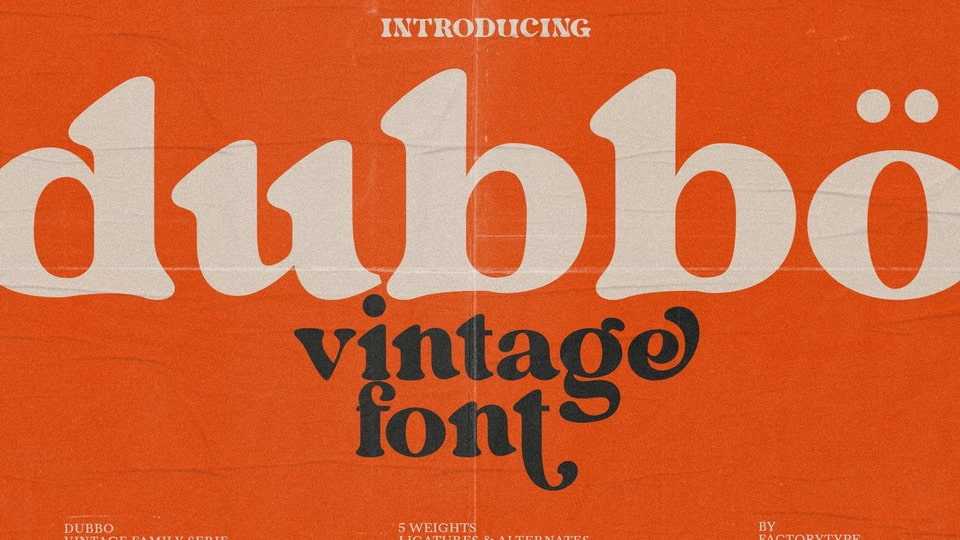
Download Dubbo font, a fashionable typeface that has both bold and vintage feel. Its thick curves give Dubbo a 70s groovy vibe, while the serifs bring it back to traditional.
Designer: Factory Type